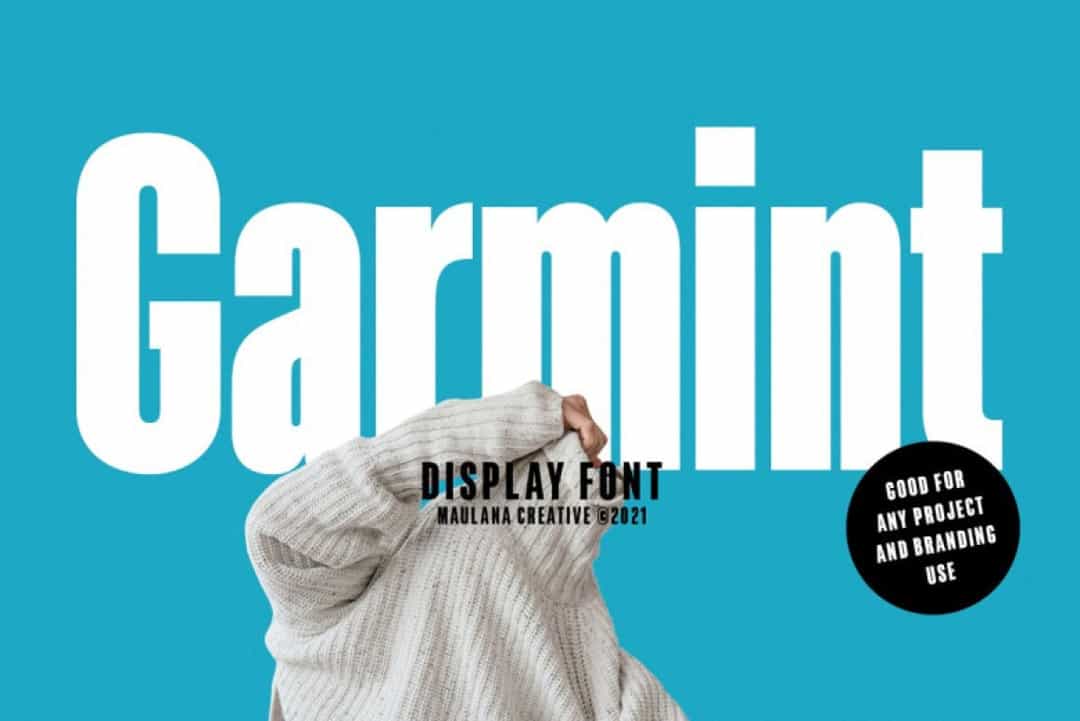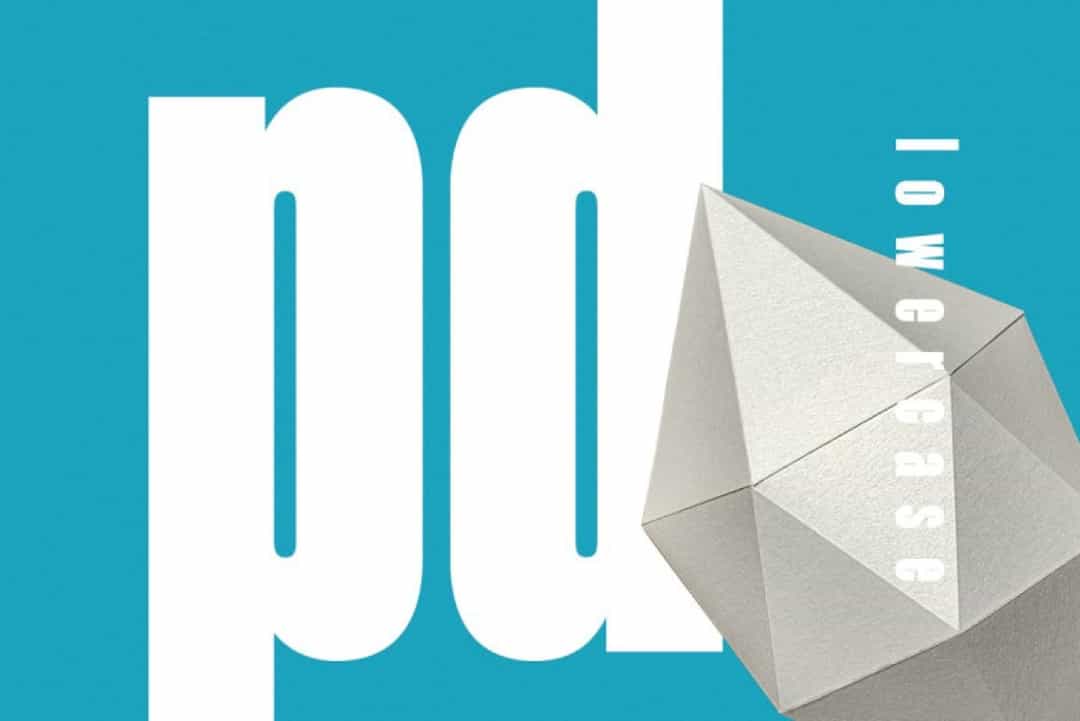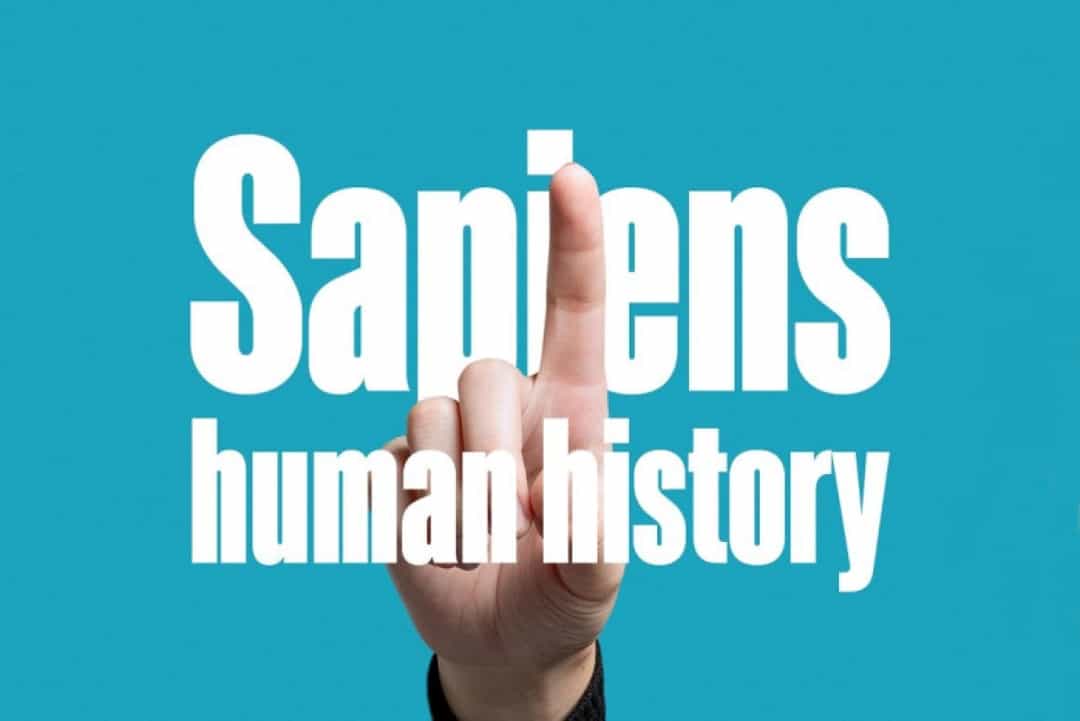
Discover Garmint Font, part of the Sans Serif Display collection—a versatile and unique font perfect for adding a personal touch to your projects. Download it for free and enjoy crafting designs with style, from invitations to social media posts. This font is available exclusively for personal use, giving you the freedom to create without limits. Unlock your creativity with Garmint Font today!
Garmint can be described as a contemporary non-serif typeface designed for displays. Featuring bold, condensed strokes and an eccentric font style, Garmint offers you an immersive work environment by supporting multilingual language translation over 100.